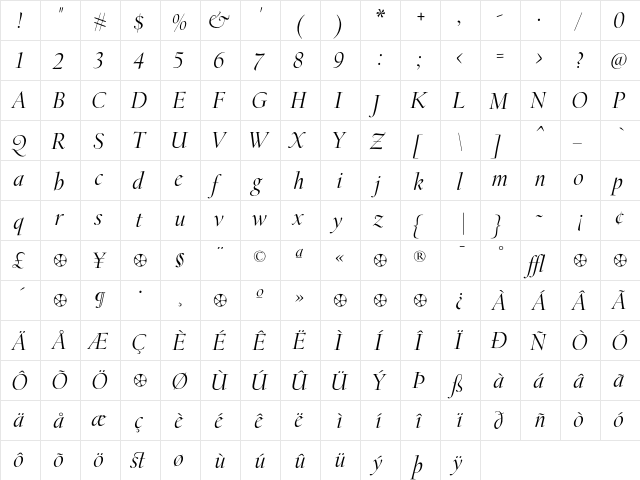
CalifornianDisplay Italic
Design Context for CalifornianDisplay Typeface
CalifornianDisplay is built around its visual character rather than neutral utility — its distinctive forms are designed to make an impression at display sizes. Its italic angle brings a sense of urgency and motion to the letterforms.
Font Pairing: Pair with a clean neutral sans-serif for body copy to let CalifornianDisplay's character lead without overwhelming the composition.
Pro Tip: Use CalifornianDisplay exclusively at display sizes — it was designed to be seen, not read at length. Let a neutral companion handle body copy.